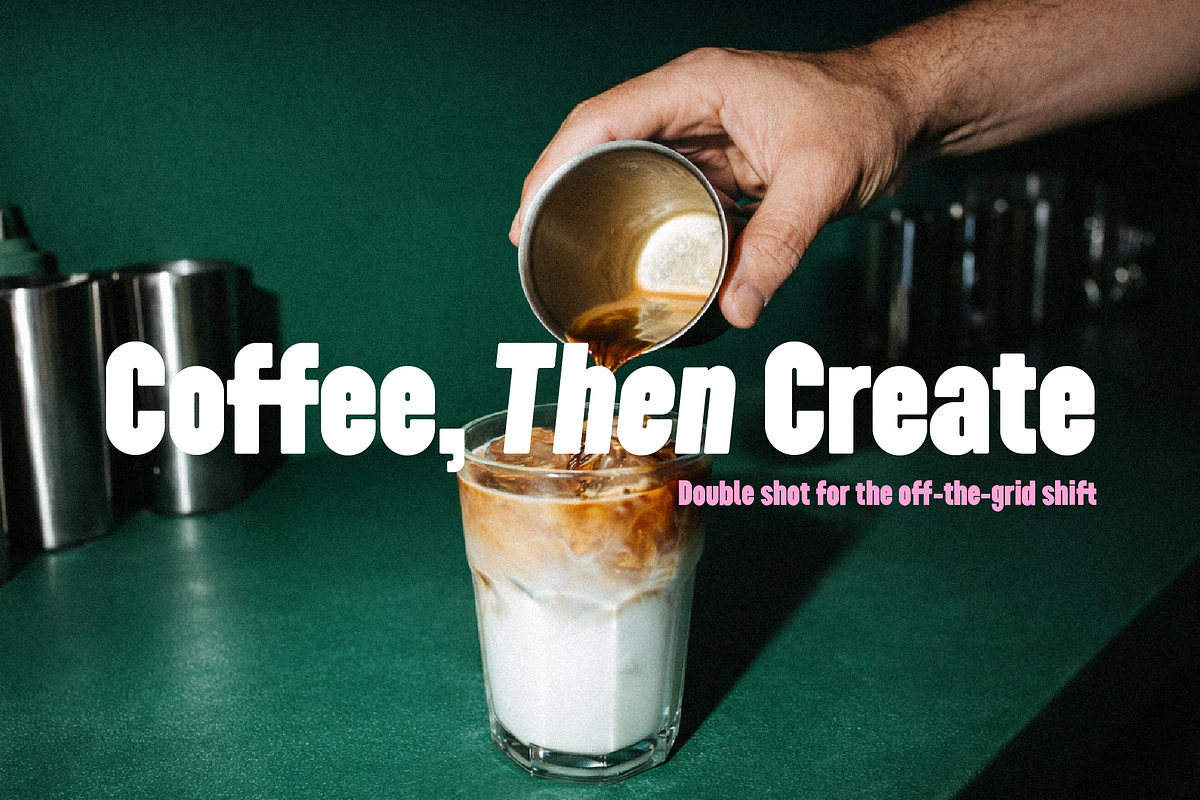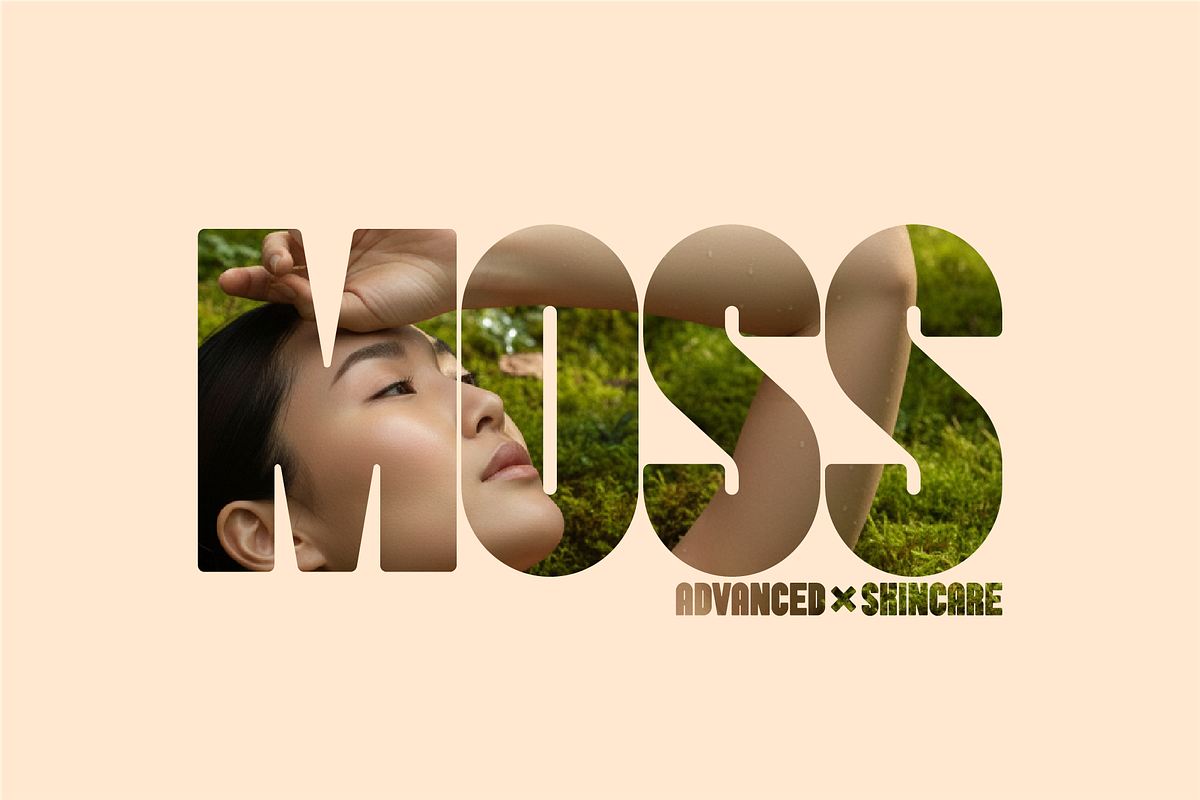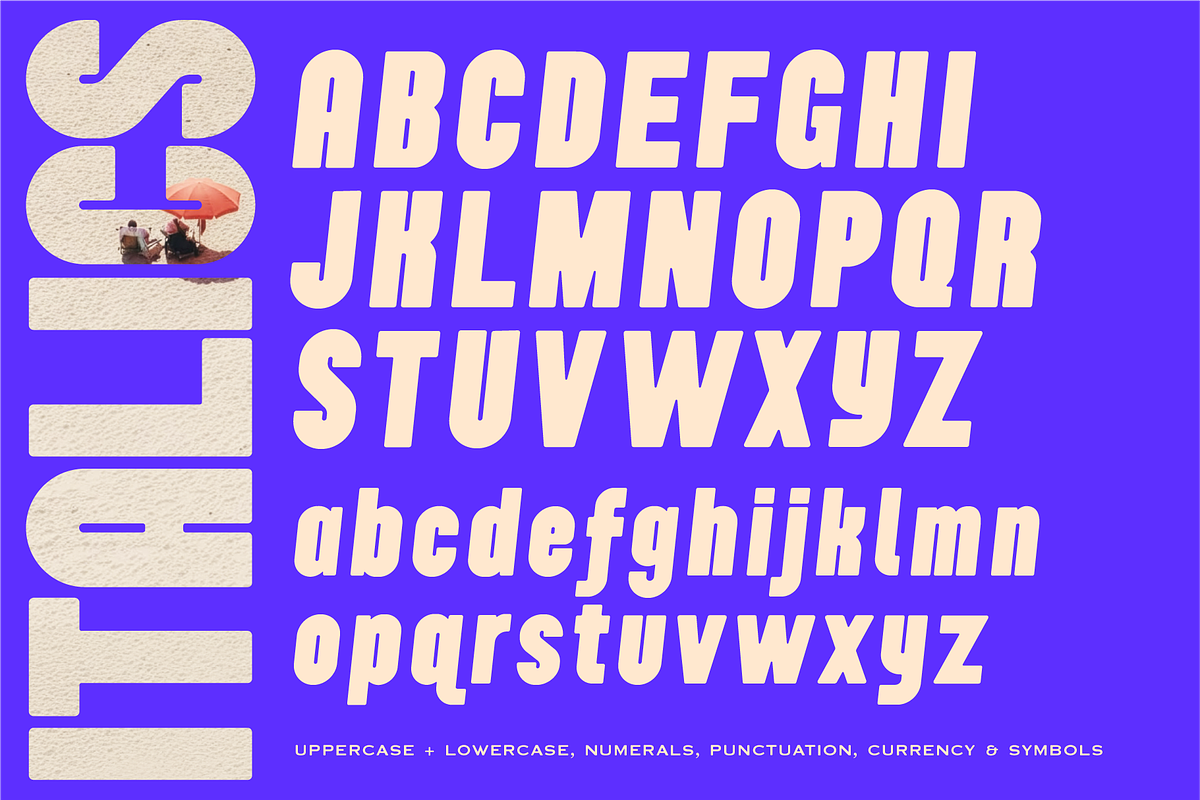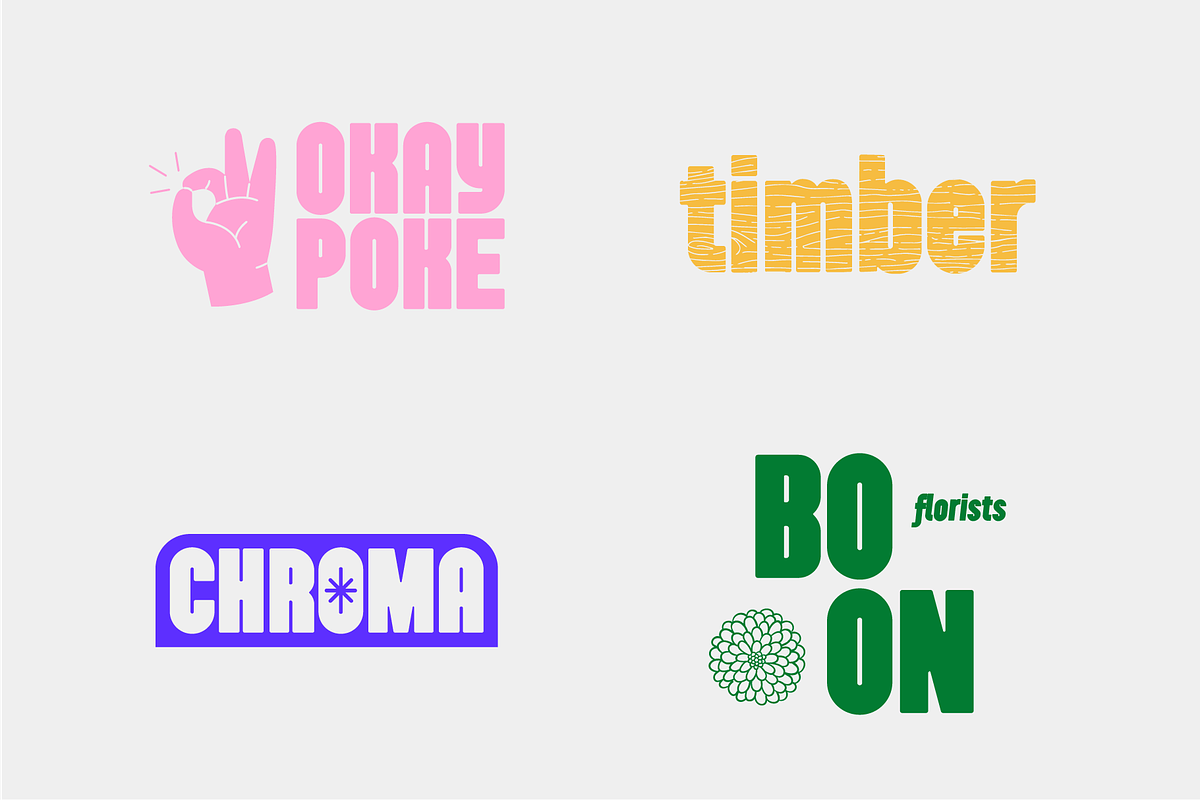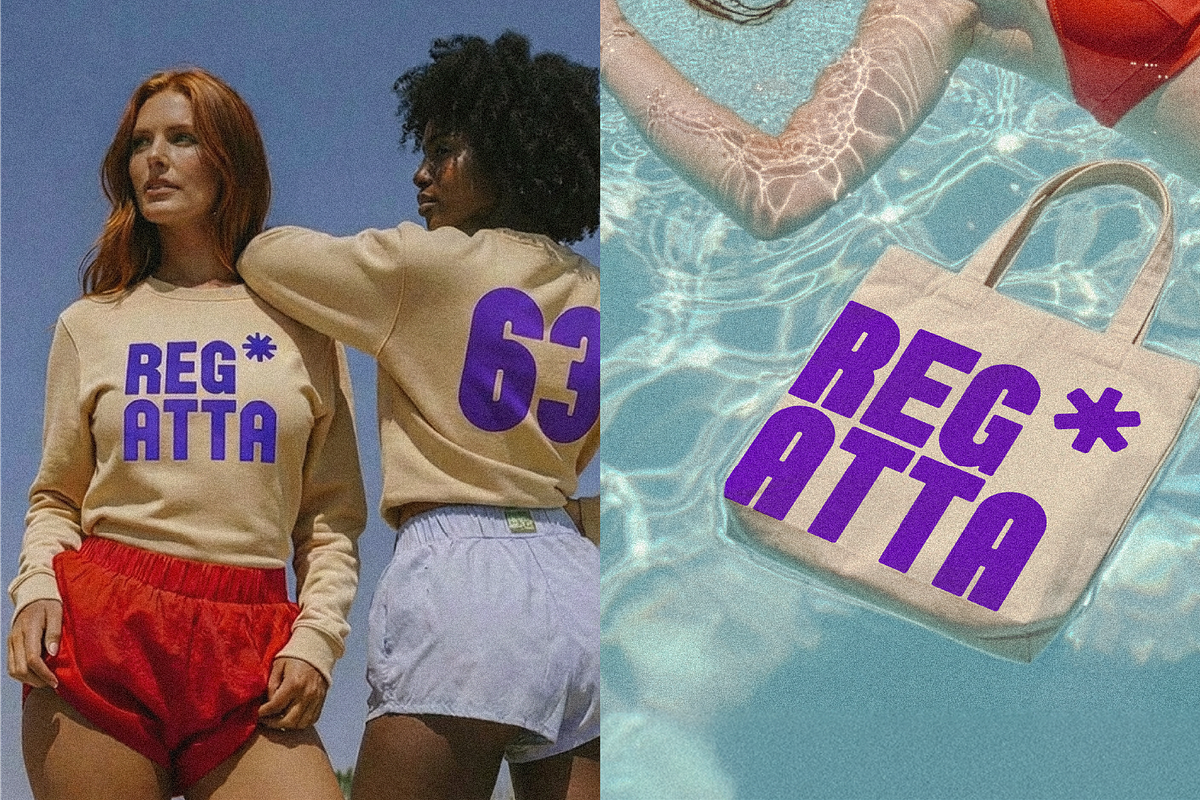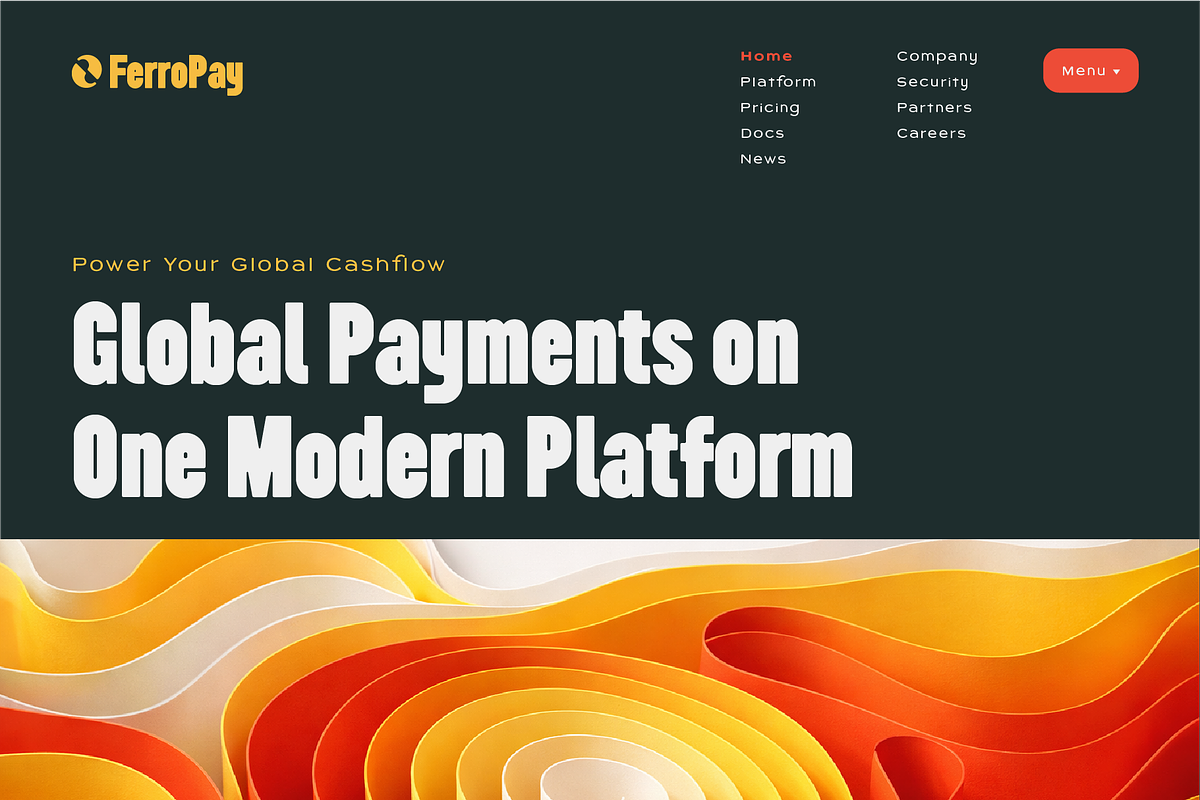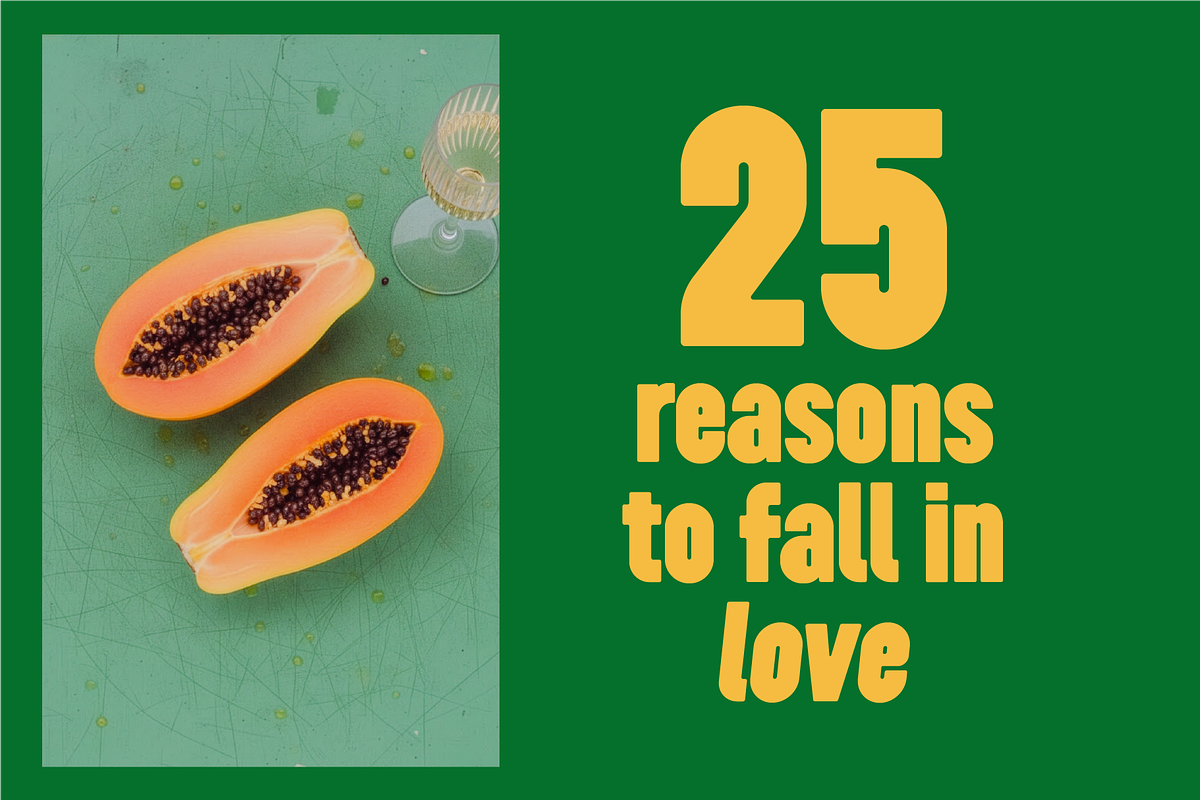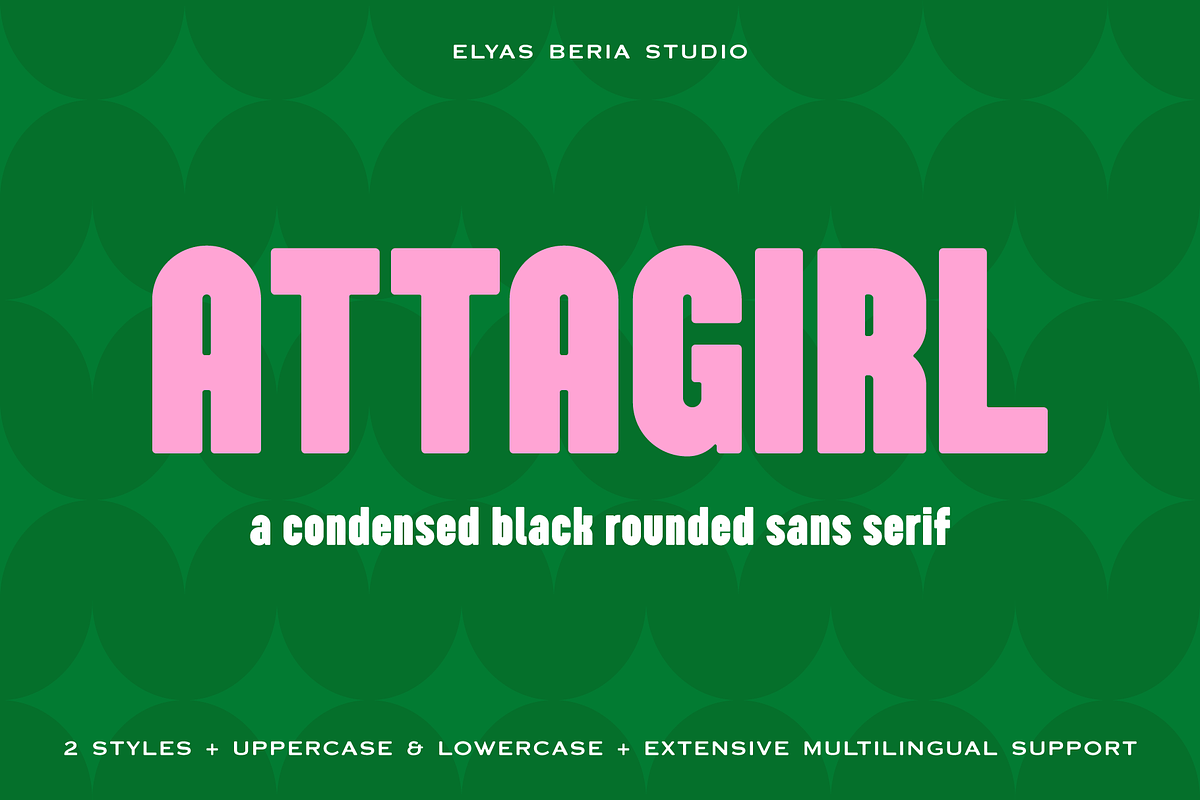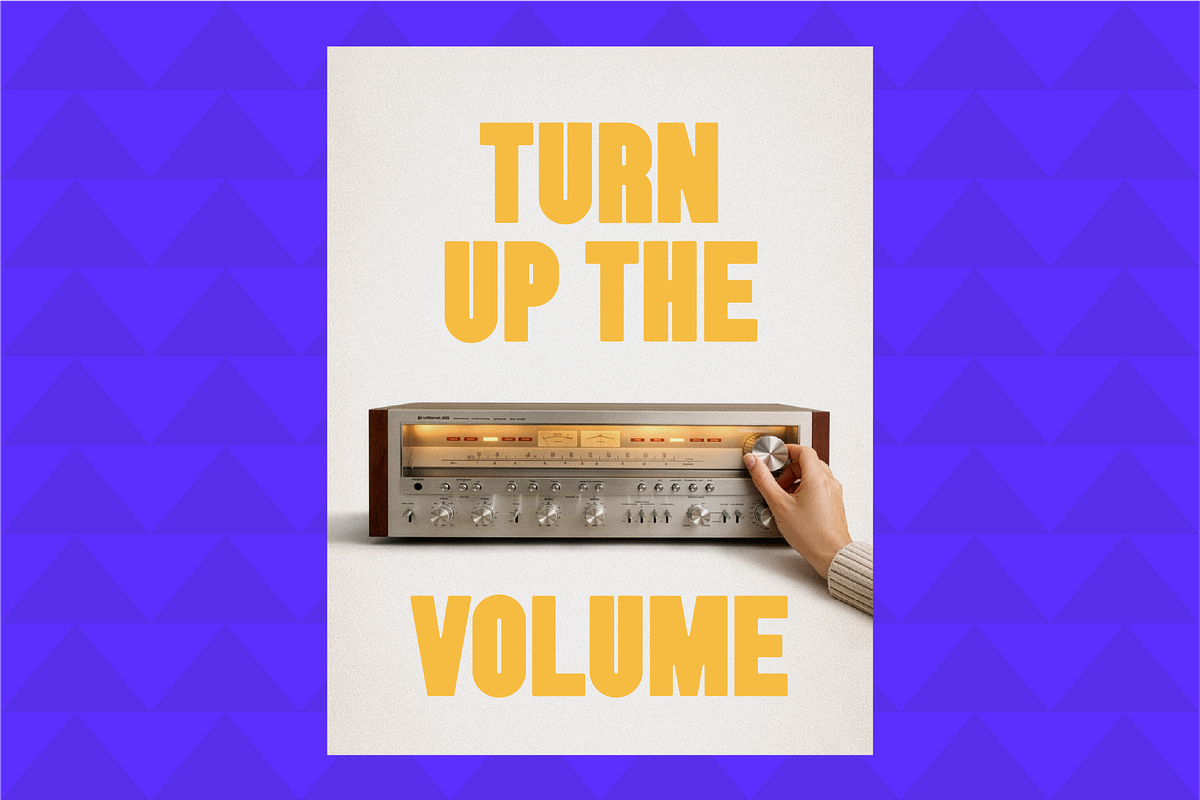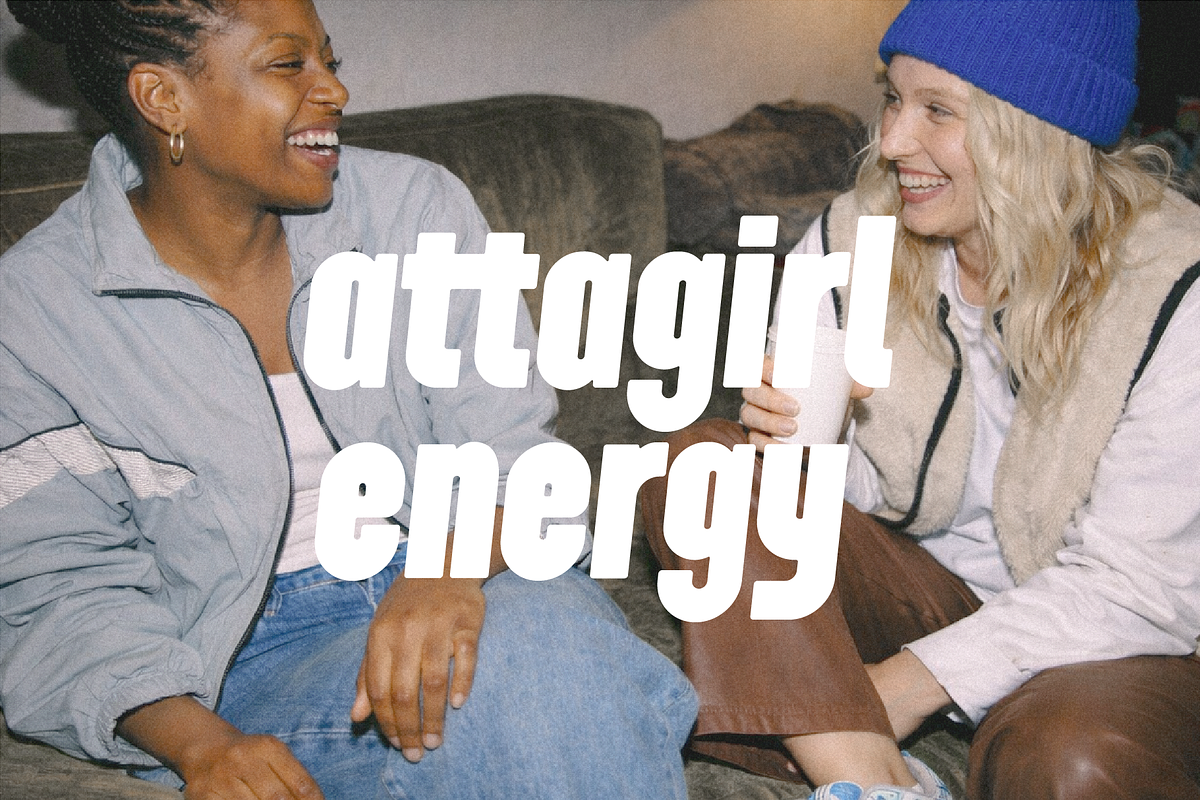
EB Attagirl — Condensed Black Sans
EB Attagirl is a condensed, ultra-bold sans with rounded corners and tight proportions. It’s built strictly for display sizes—when you need maximum volume in minimal space.
Where it works Posters, headlines, merch, packaging, sports numbers, event graphics, social promos, bold branding, wayfinding.
Key features
Category: Display Sans, Condensed/Compressed, Black weight
Two styles: Upright Regular + Italic (slanted)
Case: Uppercase & lowercase
Figures: Lining numerals (0–9)
Punctuation & symbols: Full basic set + currency ($ € £ ¥ ¢) + math (× ÷)
OpenType: Standard ligatures ff, tt; prebuilt fractions ¼ ½ ¾ ⅓
Language support: Western & Central European Latin (incl. Å Ä Ö, Æ Ø, Ç, Œ, Š Ž, Ł, Đ, Ř, Ý, ß, and more)
Style notes
Low contrast, solid fills, soft corners for a friendly but industrial voice
Designed to track tight without choking counters
Works great over imagery and color blocks